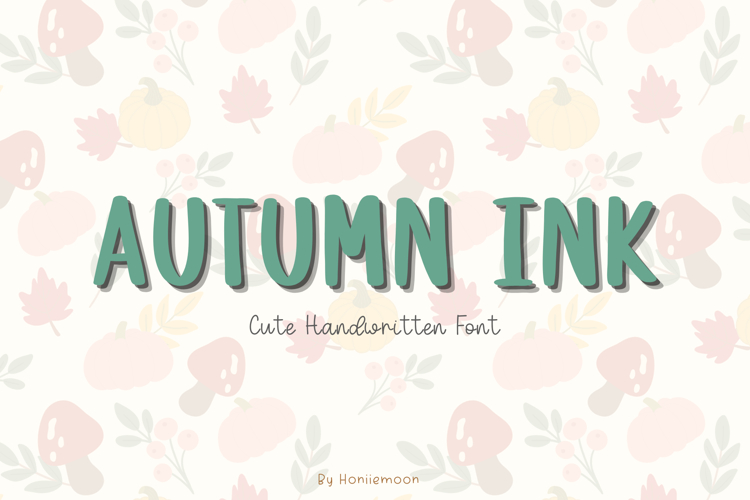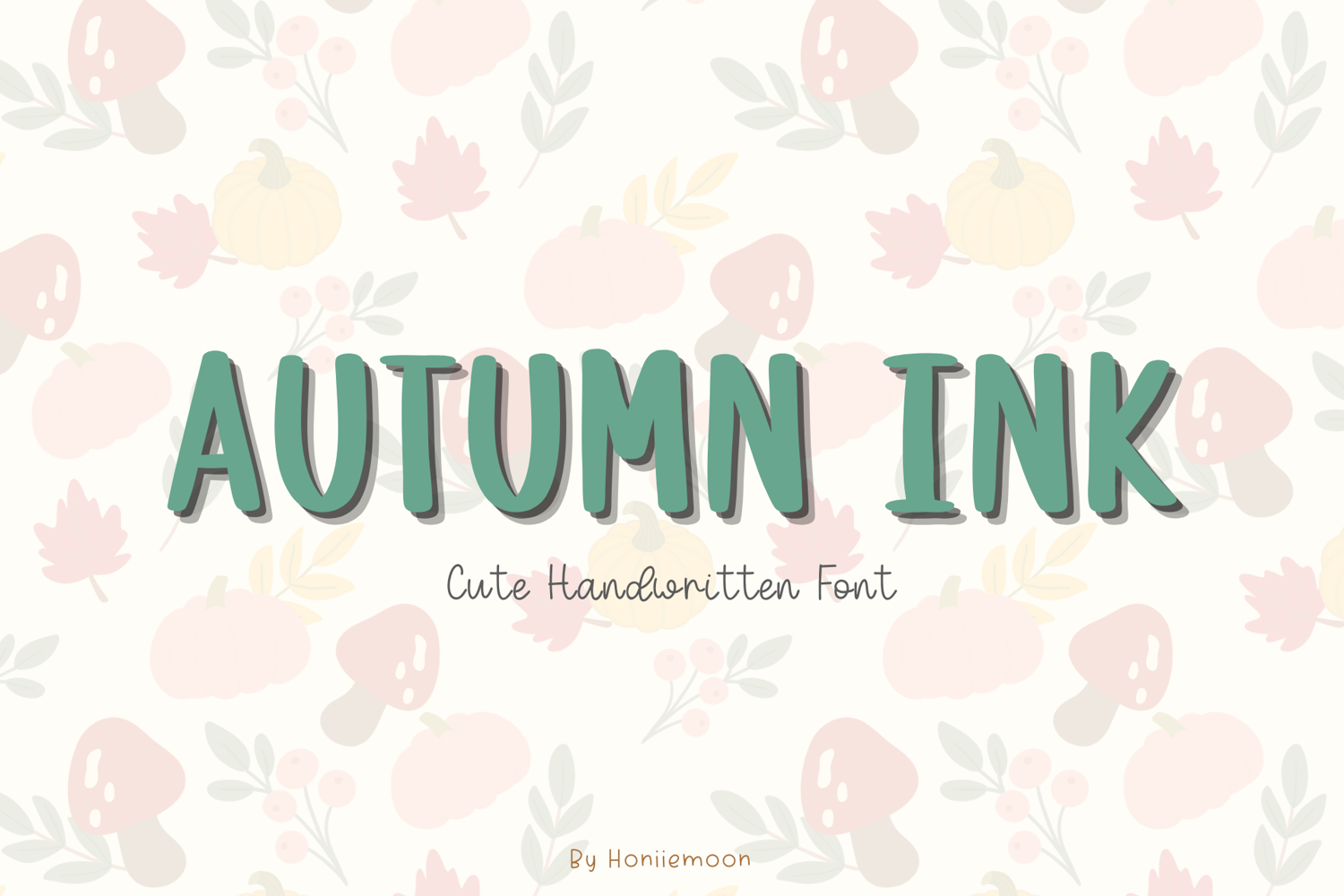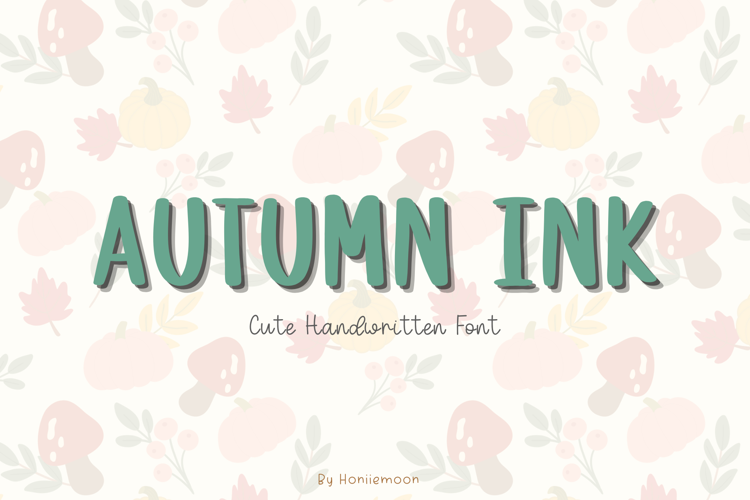
Autumn Ink is a charming all-caps handwritten font designed with a playful and smooth flow. This versatile font is perfect for back-to-school tags, teacher shirts, baby nursery prints, holiday crafts, and more. With its clean outline and soft aesthetic, Gentle Flow pairs beautifully with pastel colors and works well for both digital and printable projects. Great for Cricut, sublimation, and POD designs.